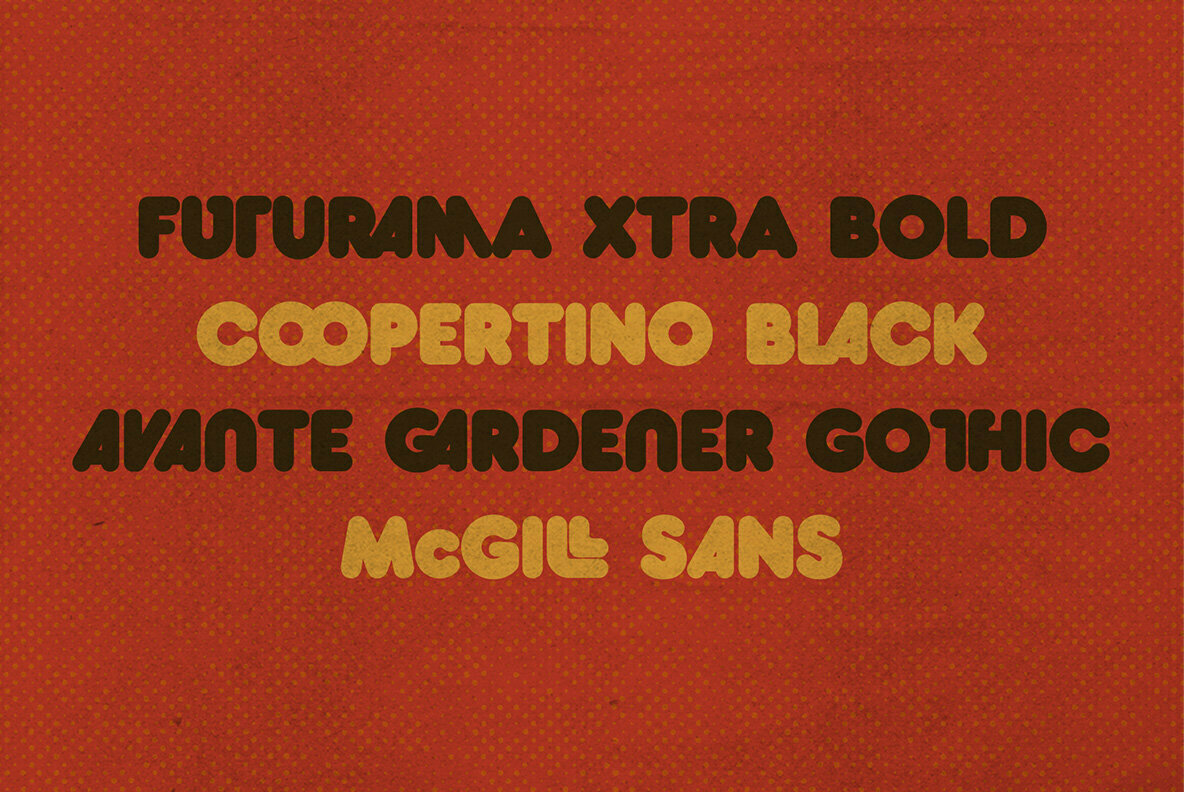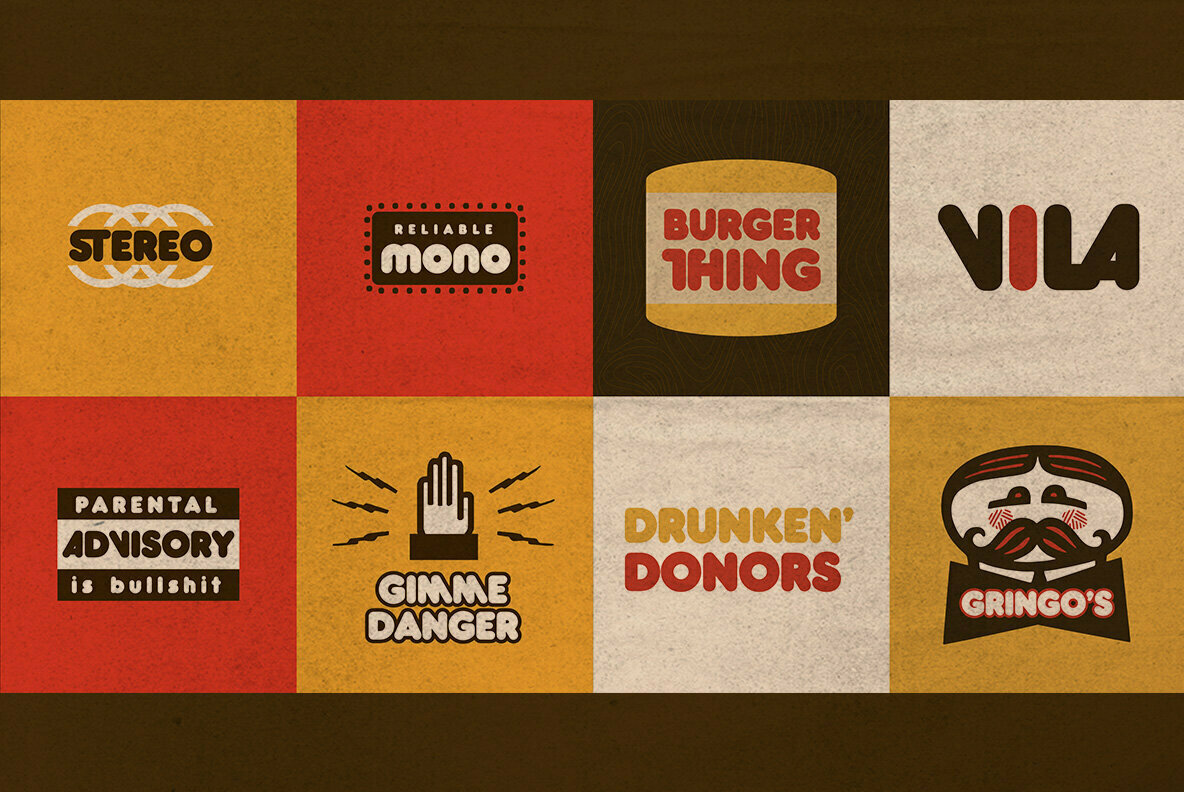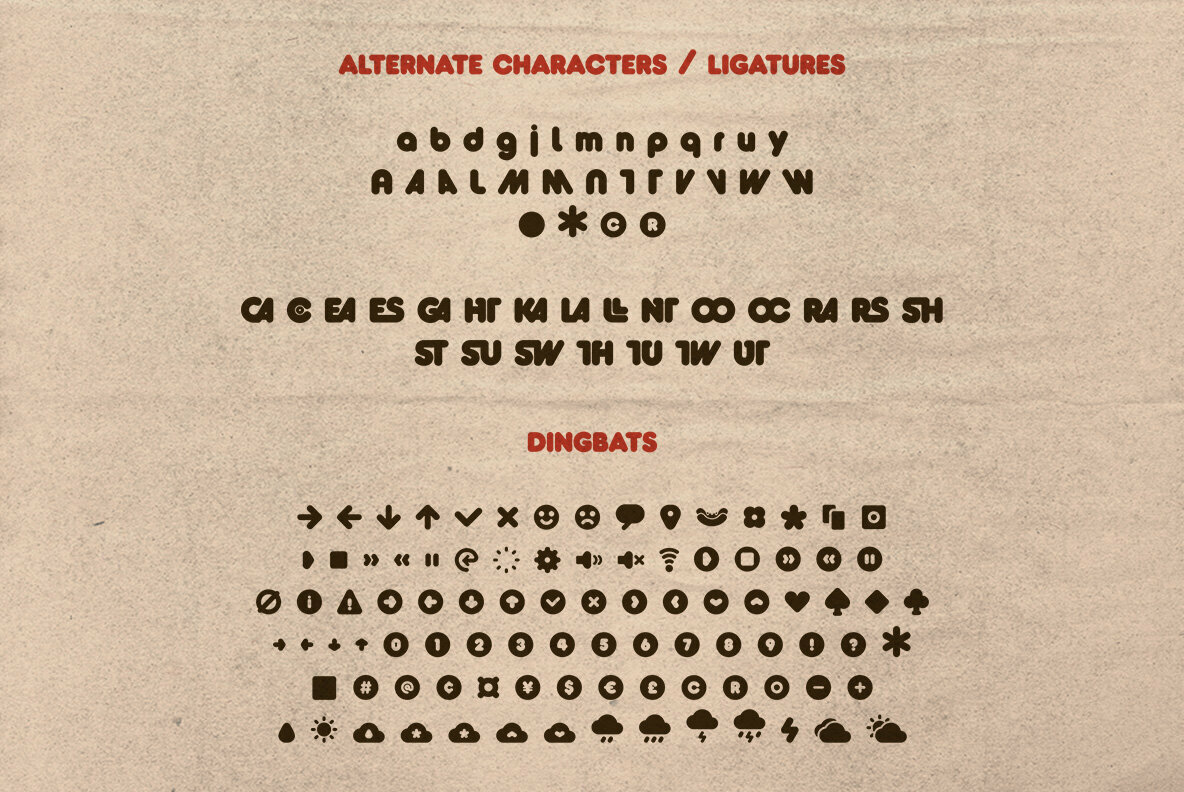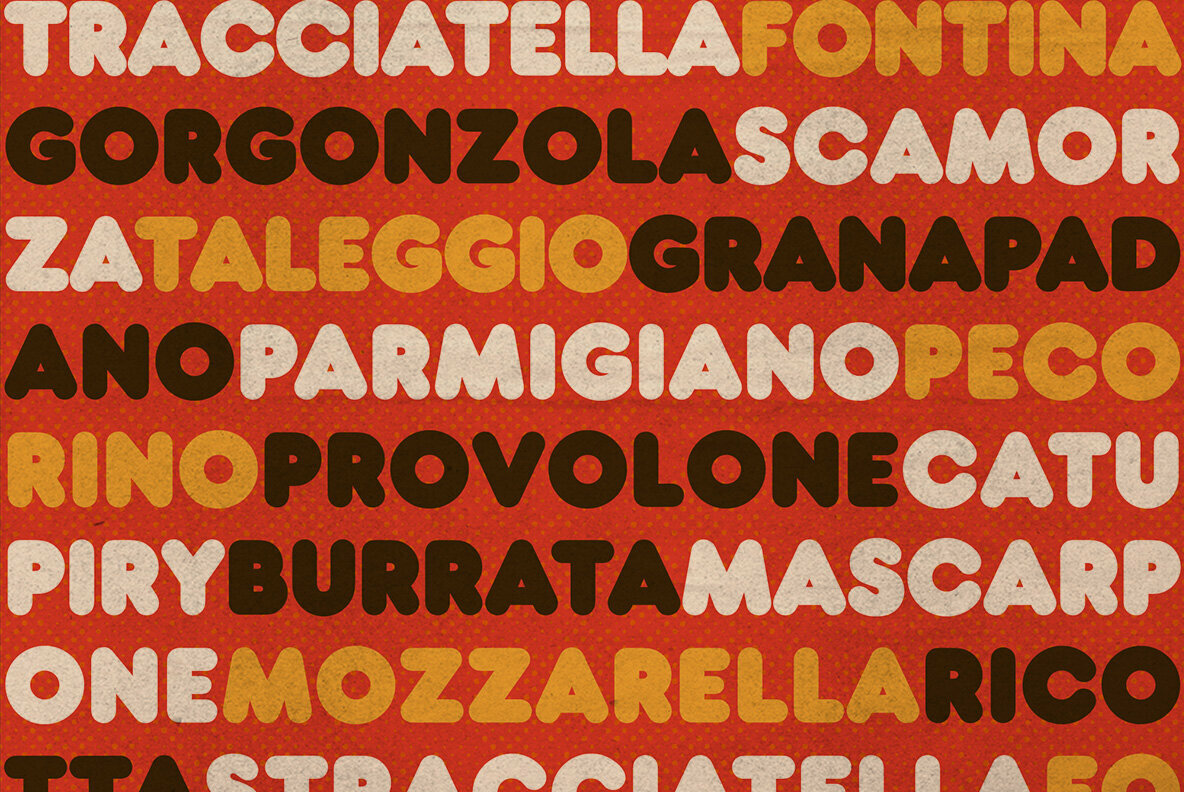
Choripán is a revival typeface based on a classic design: Frankfurter, by Bob Newman (Letraset studio, 1970). It was always a personal favorite, but the lack of a proper lowercase, special characters and diacritics have always been a letdown for me in the digital versions of the font. My humble intention was to expand the original set, adding the missing characters and a few features as alternates and ligatures. I also designed a dingbat set to add a contemporary and fun flavor to it.
It is meant for use in large sizes: titles, letterings and logos.